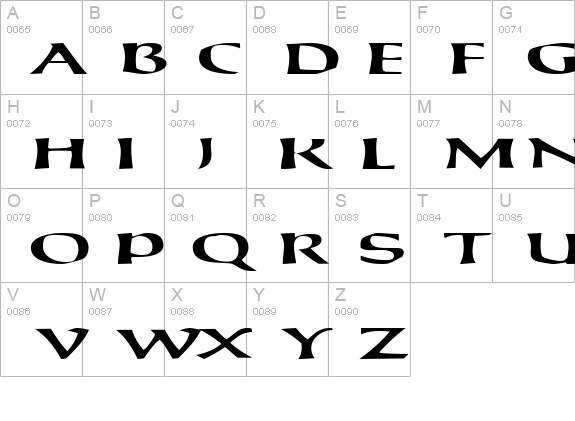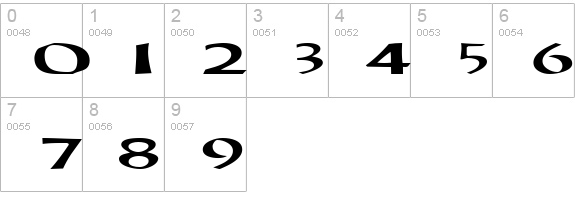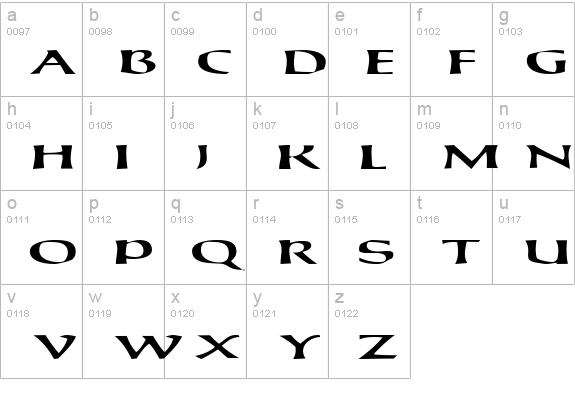
CayaugaSCapsSSK Font Details
CayaugaSCapsSSK font is a stylish and modern typeface that exudes elegance and sophistication. Its sleek and streamlined design makes it perfect for a wide range of projects, from branding to editorial design. The sharp serifs and clean lines give this font a timeless appeal that will elevate any text it is used for. Best of all, CayaugaSCapsSSK font is available for free download at FontsMarket.com. This means you can easily access this high-quality font without any cost, making it a fantastic option for designers and creatives looking to add a touch of class to their work. Don't miss out on the opportunity to enhance your projects with this beautiful and versatile font today.